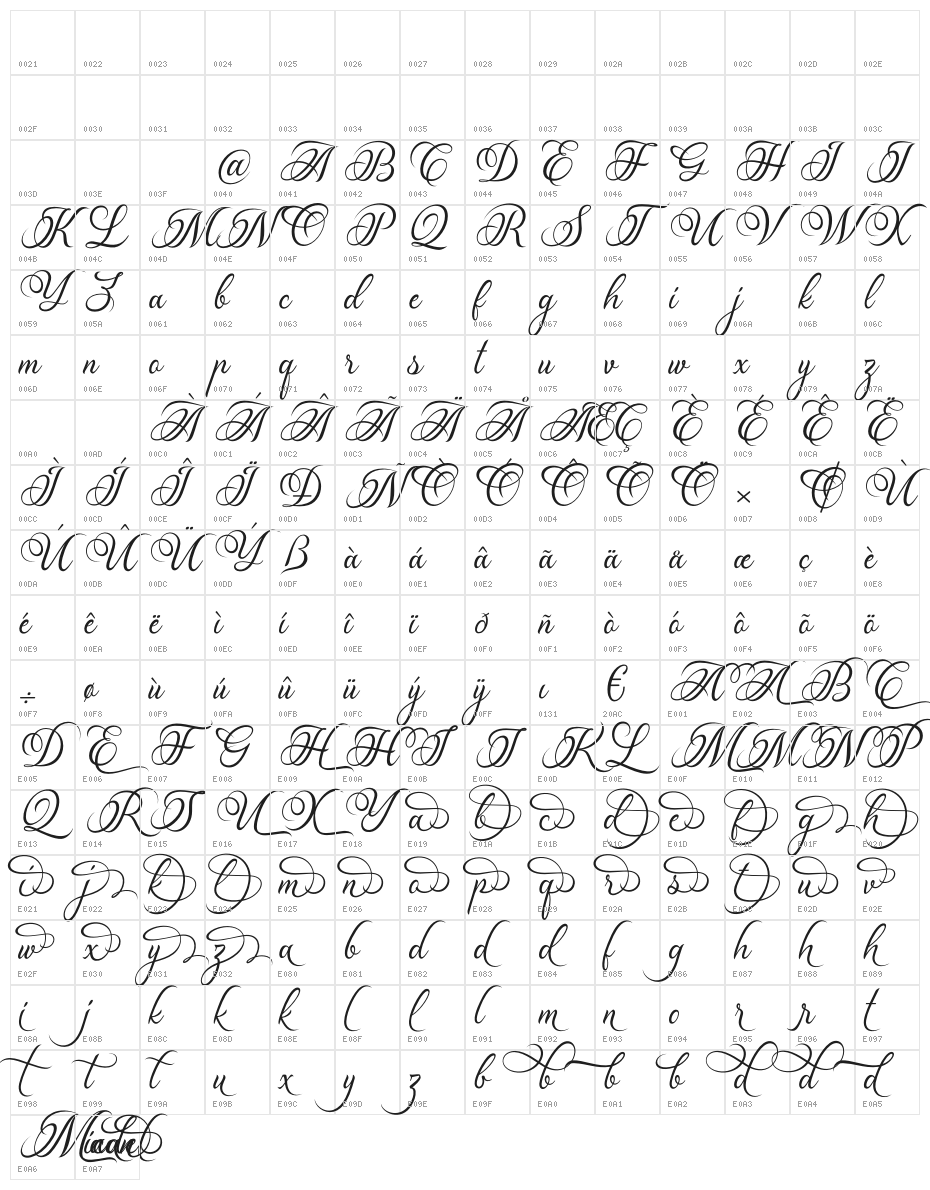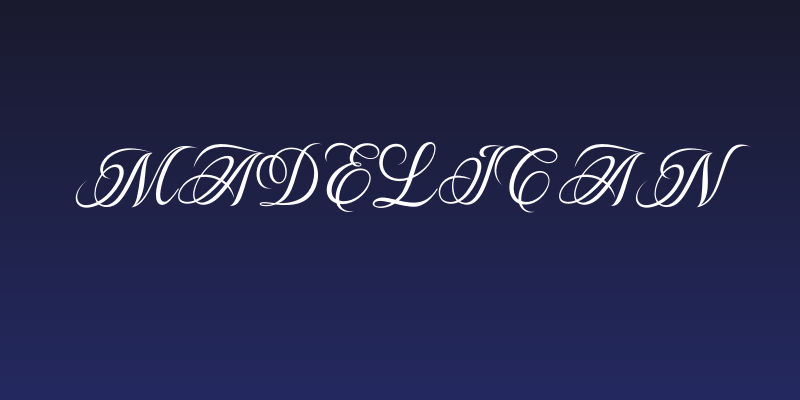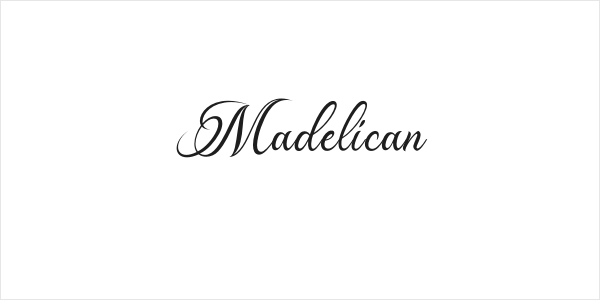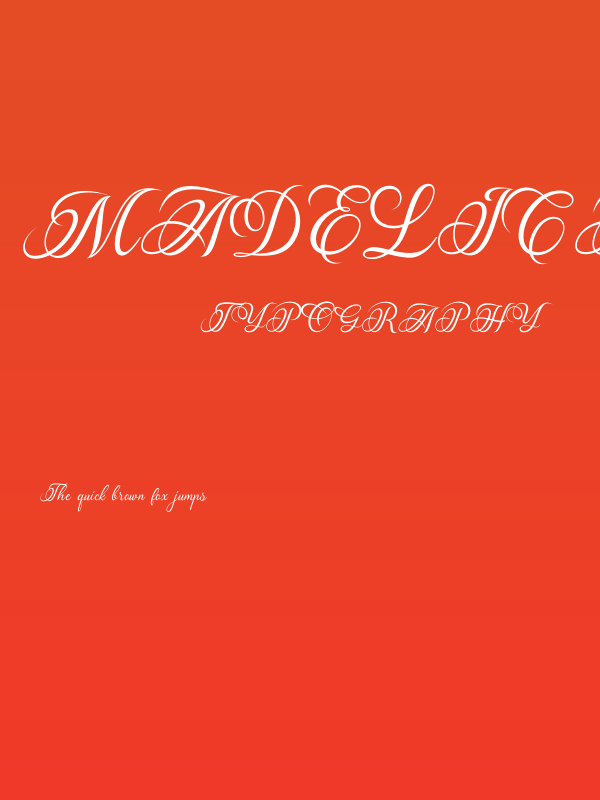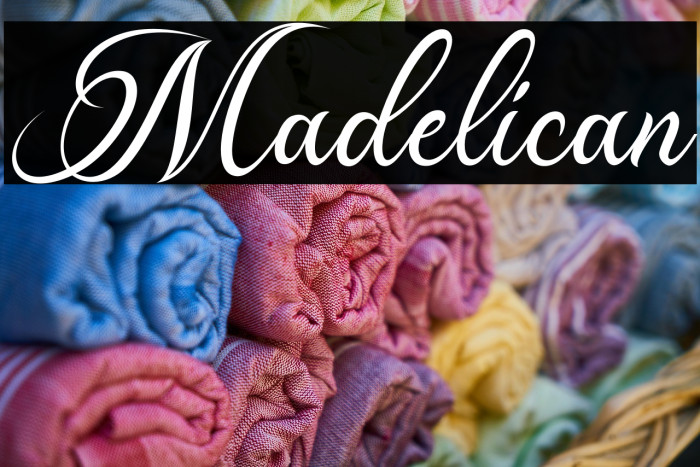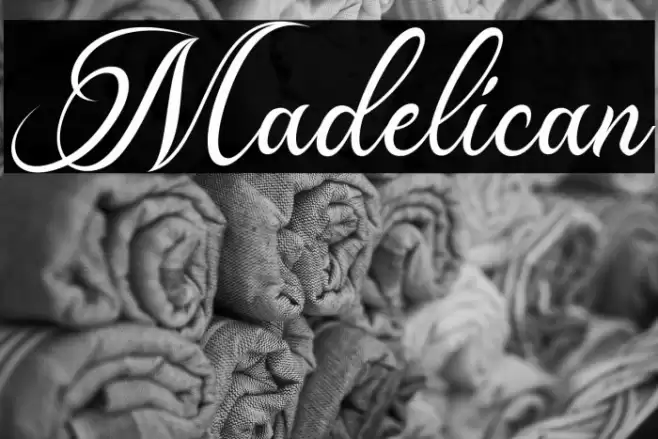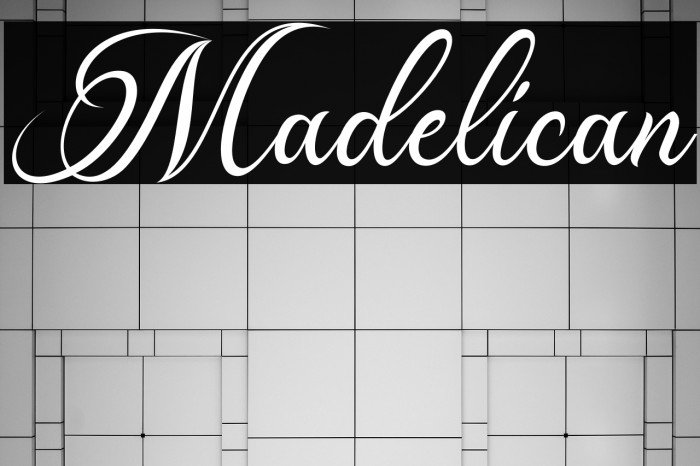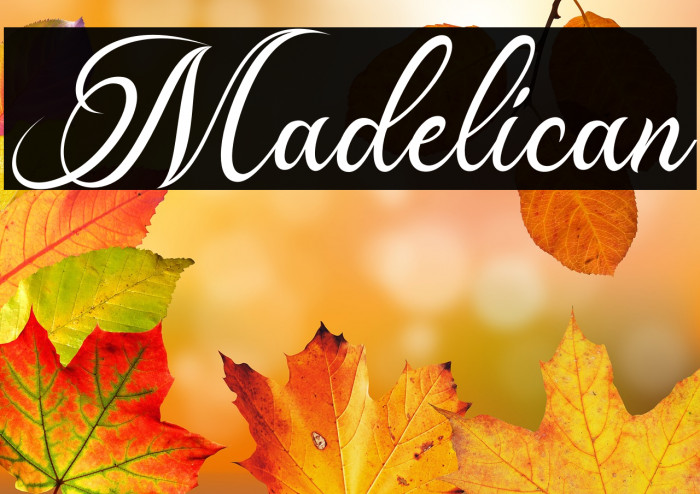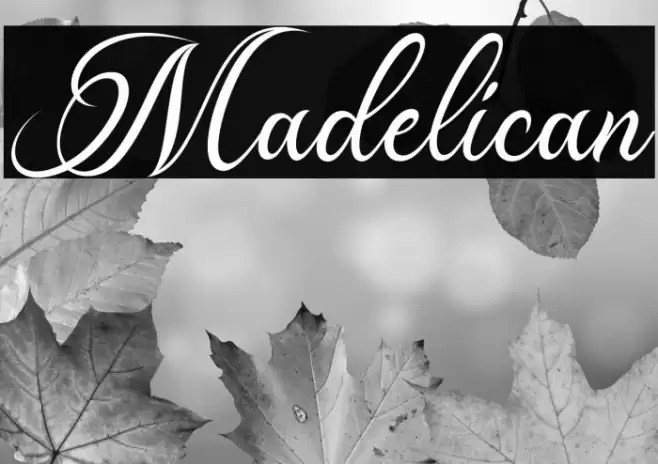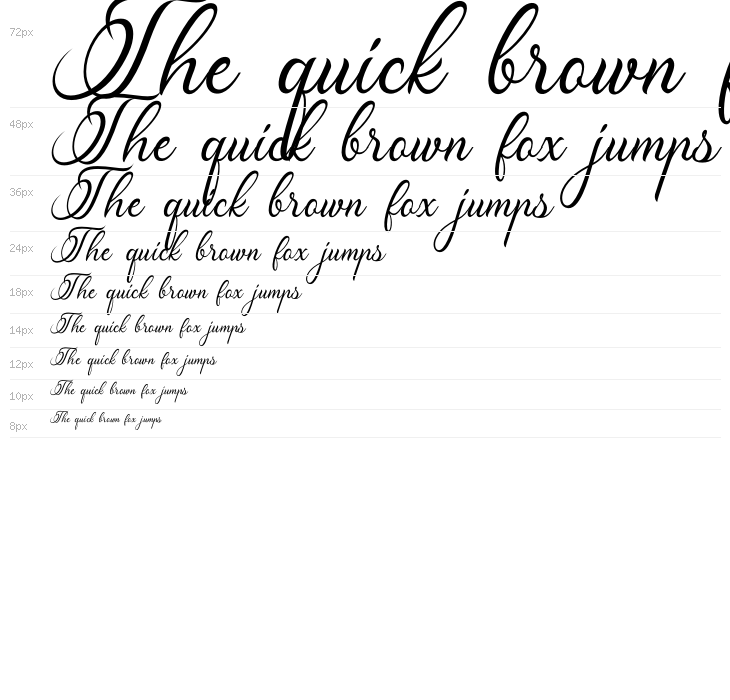
Madelican Font
Madelican Description
This elegant script font features a flowing, cursive style with intricate loops and flourishes. The uppercase letters are particularly ornate, with sweeping lines that give a sense of movement and grace. The lowercase letters maintain a consistent style, with smooth curves and a harmonious flow. The font's design is reminiscent of traditional calligraphy, offering a classic and sophisticated appearance. It is well-suited for formal invitations, branding, and any project that requires a touch of elegance and refinement. The characters are well-spaced, ensuring readability while maintaining the decorative nature of the font.
| Overall Style | Classic |
| Use Case | Logos, Invitations, Branding |
| Proposed Projects | Ideal for wedding invitations, luxury branding, elegant logos, and formal event materials. |